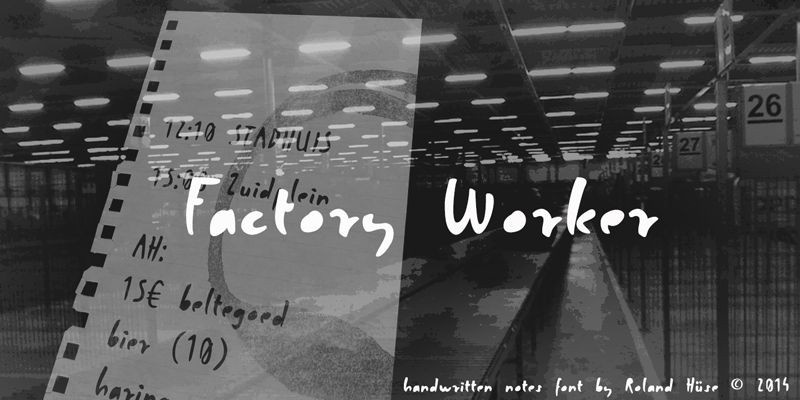
FACTORY WORKER is a hand drawn scribble font inspired by years I spent as a factory worker in the Netherlands.(I am still a factory worker though: I work in my own font factory! :) This font is free for PERSONAL use only. For any commercial use (anything you make money from), you must send a paypal donation to myhandwritings@gmail.com. |